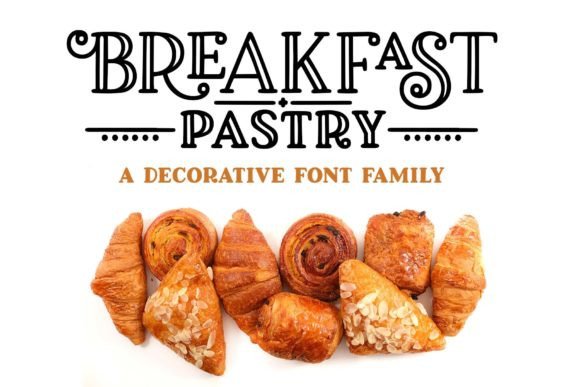
Are you searching for a unique and playful display font for your next project? Look no further than Breakfast Pastry Font! Created by the talented GeekMissy, this font family boasts ball terminals that add fun and character to any design.
GeekMissy began with a hand-drawn set of basic letters, then went wild creating alternates and ligatures galore with fun swirls, curls, and tons of balls! The result? Three stunning versions of Breakfast Pastry: a regular, a solid version without cutouts, and an even thinner version.
All three fonts include over 700 glyphs and 300 extended Latin characters, providing language support for any project. Plus, with over 200 bonus items like alternate letters, letters with swashes, two-letter ligatures, small caps, catchwords, and even bonus ornaments and elements, the Breakfast Pastry font family is incredibly flexible.